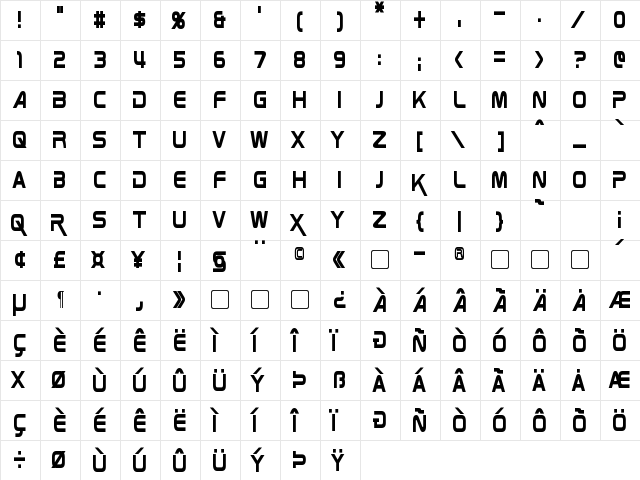
Zebulon Condensed Regular
| Foundry | Neale Davidson |
| Designer | Neale Davidson |
Design Context for Zebulon Condensed Typeface
Zebulon Condensed offers clean, dependable letterforms without strong stylistic allegiance, making it a practical choice for designers who need flexibility. Its narrow stance lets it pack a punch even in space-constrained designs.
Pro Tip: Use Zebulon Condensed in both headline and body roles to test its range before committing to a single application.